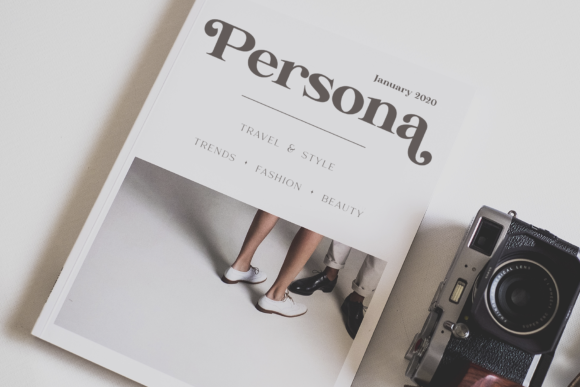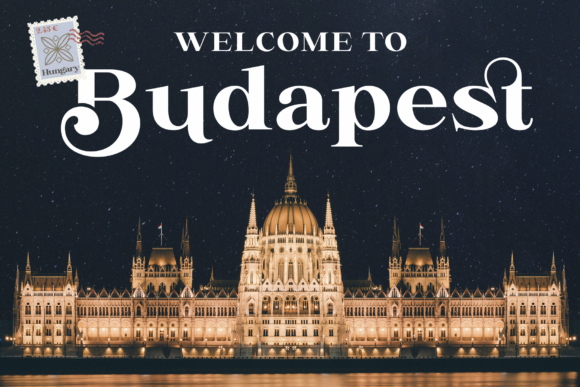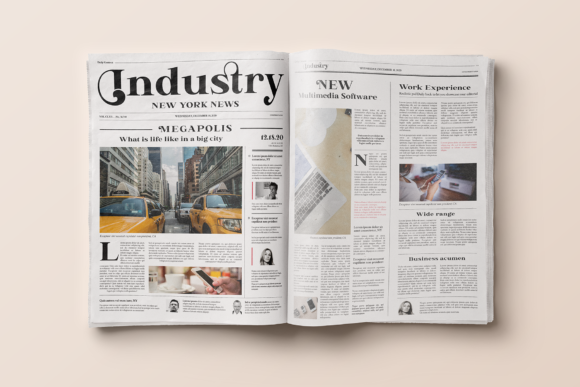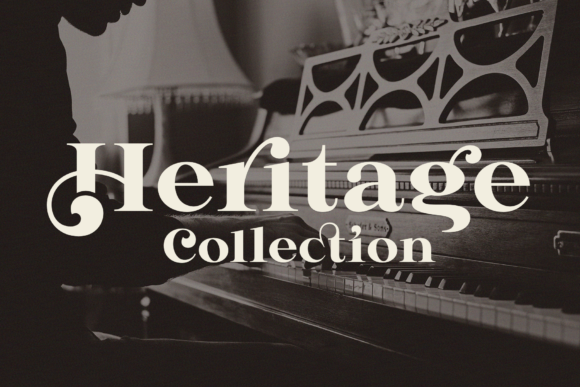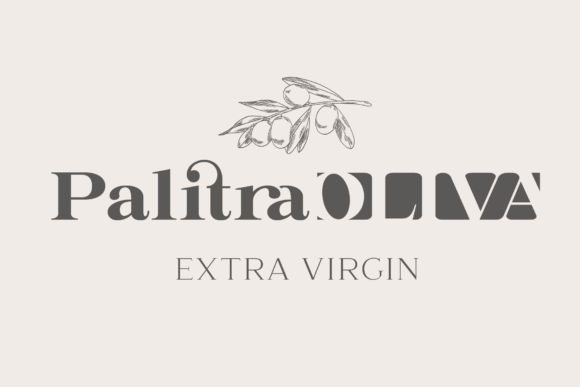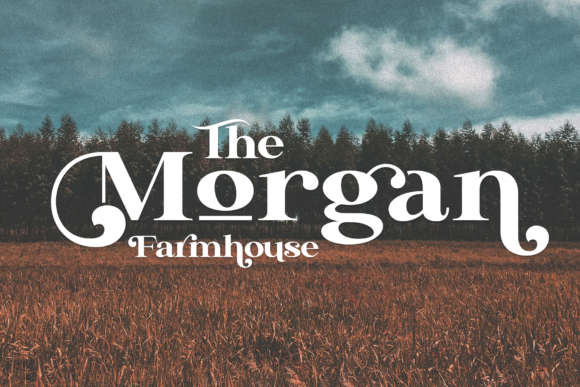
Introduction to Platinor Font
Platinor is a beautiful and elegant serif font.
While it carries the look and feel of a classic display font, it also has a distinct contemporary charm .